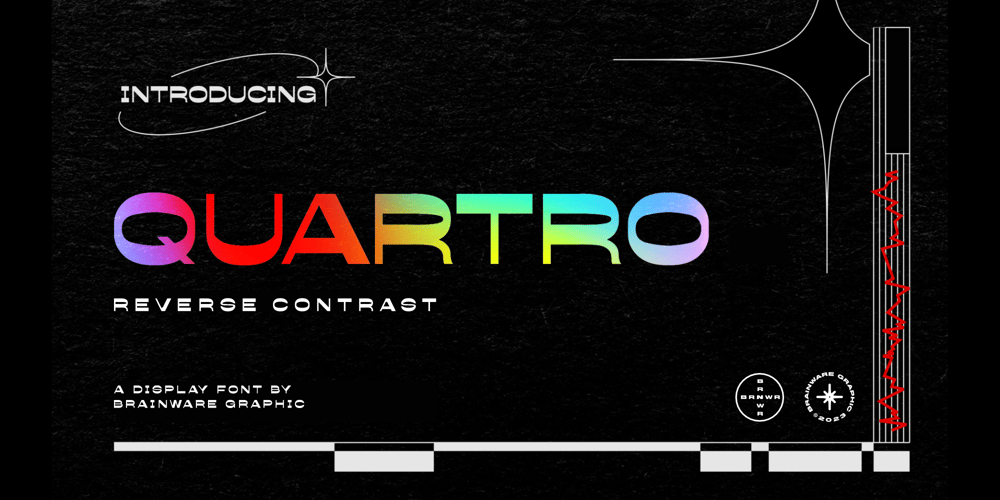
Quartro
Quartro font
Quartro Font Family was designed by Muhammad Jauhar Azmi and published by Brainware Graphic. Quartro contains 1 styles and family package options. Quartro typeface is a reverse contrast display typeface, stylistic, and uniquely humanist sans. It’s design influenced by modern typography and contemporary art.Quartro typeface comes in single-weight.Multi-lingual Supported (Latin Extended).